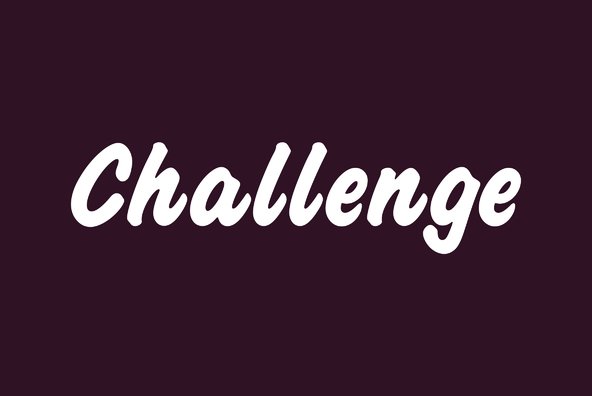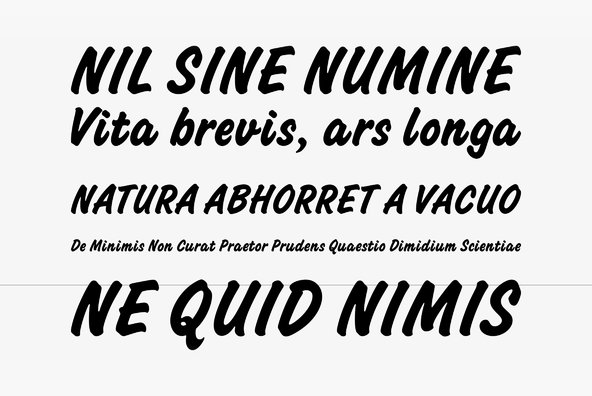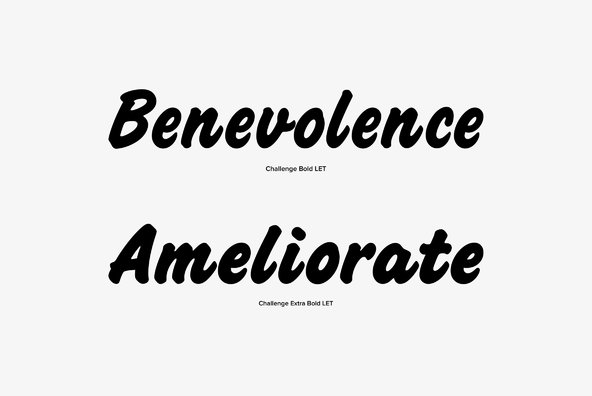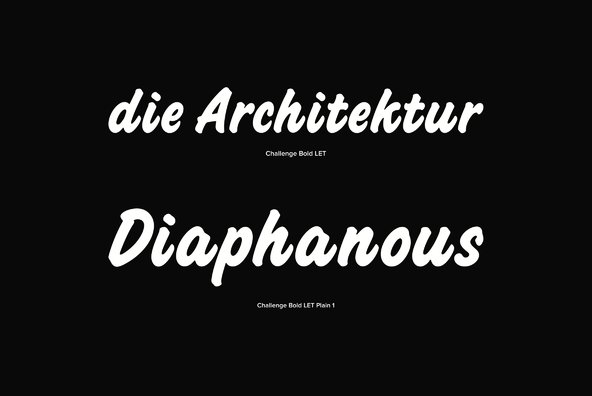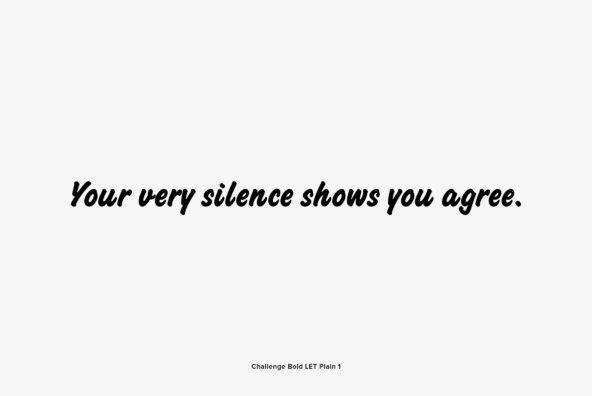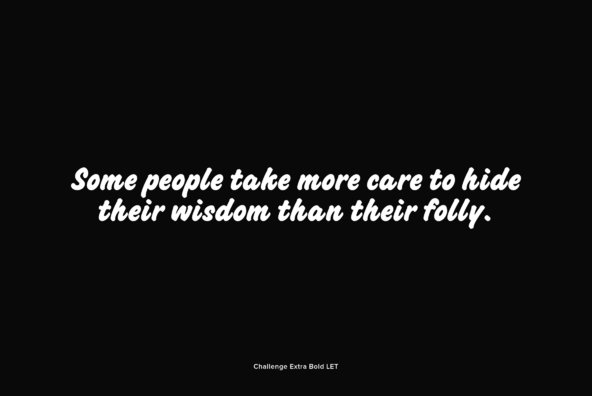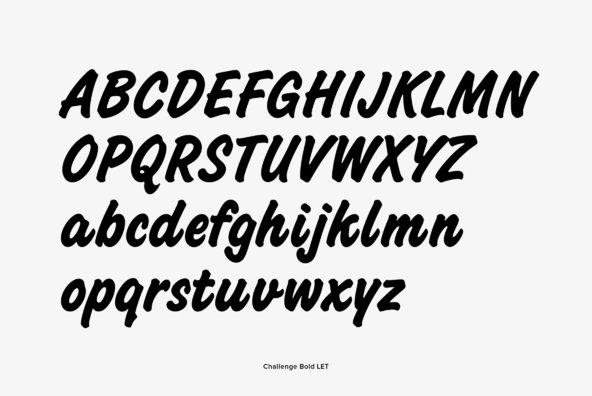
Challenge
English brush lettering specialist Martin Wait created Challenge Bold with all the fresh spontaneity of hand rendered lettering. For maximum effect, the capitals should be set closely and the lowercase letters should be overlapped to achieve an authentic appearance. Perfect where an informal, yet authoritative effect is required.